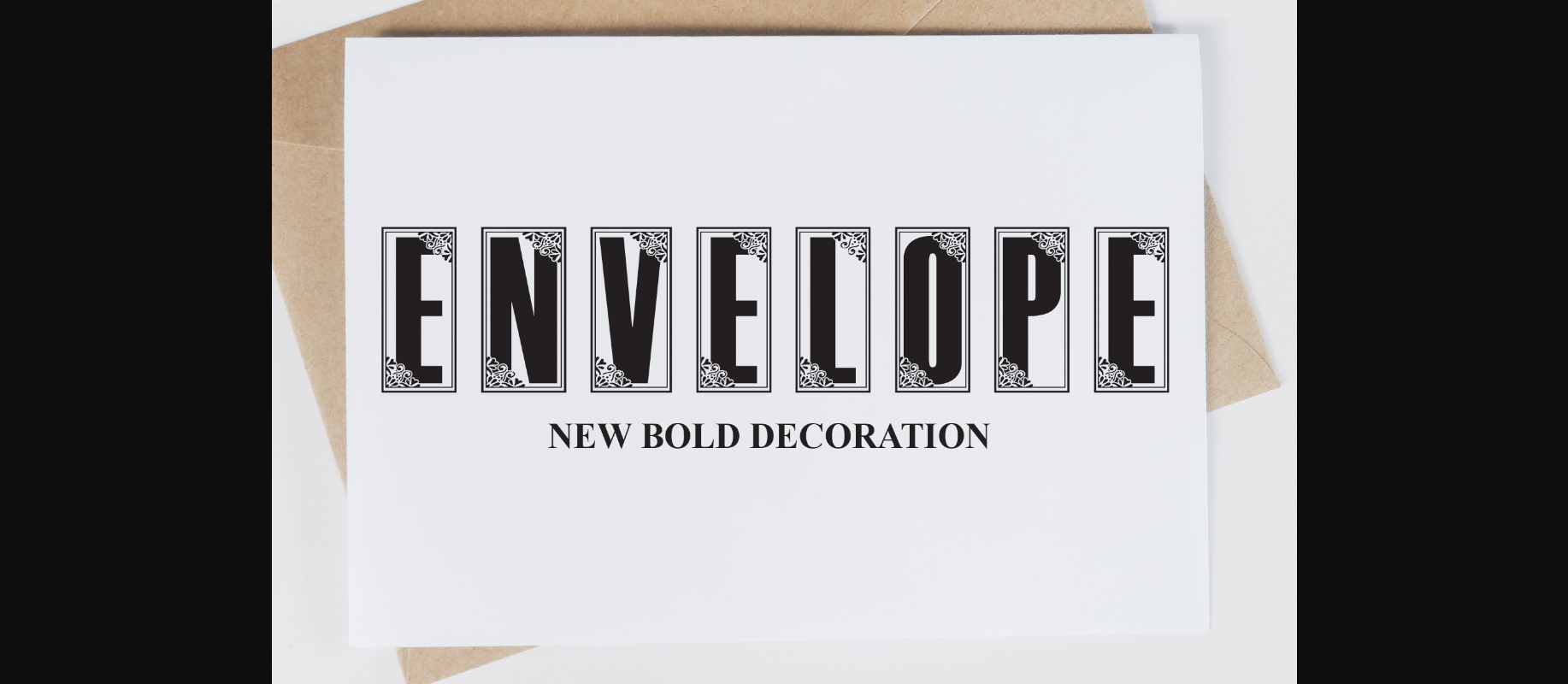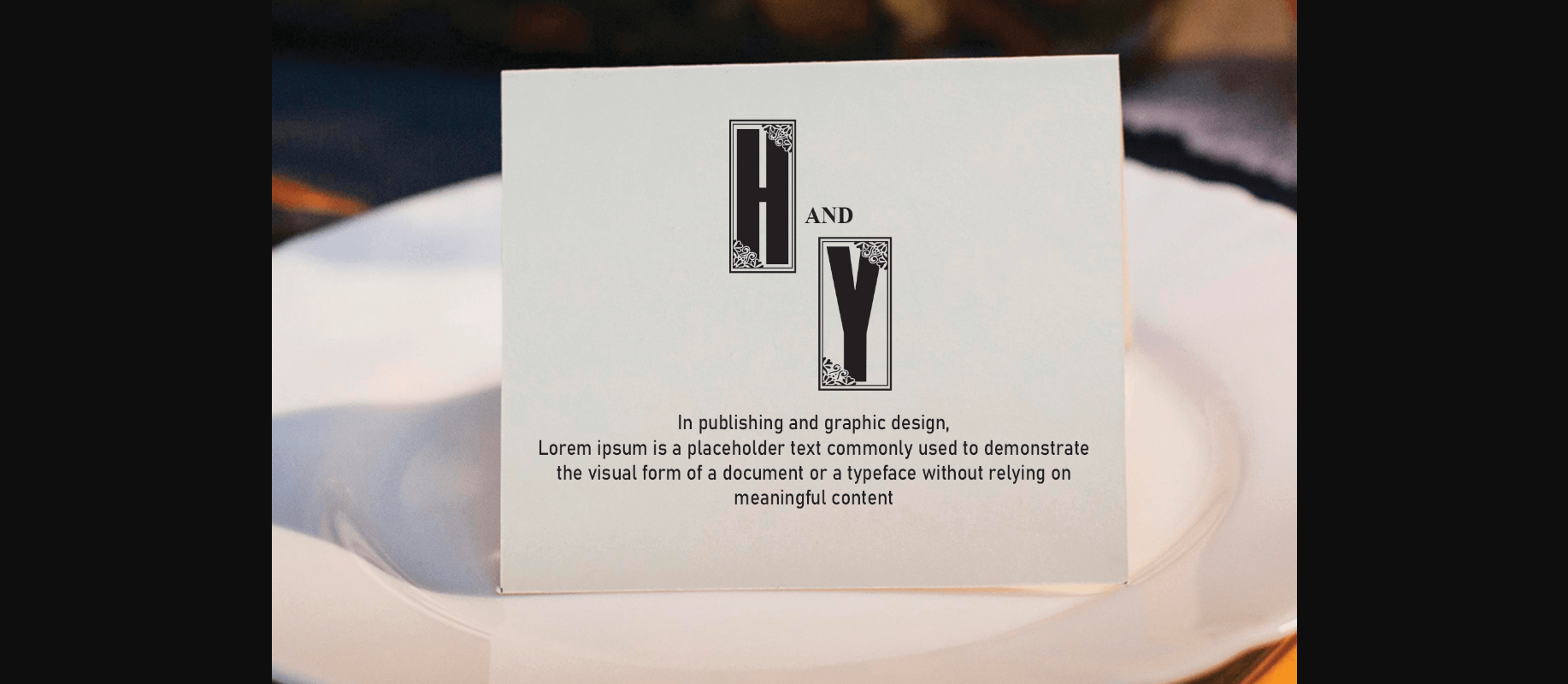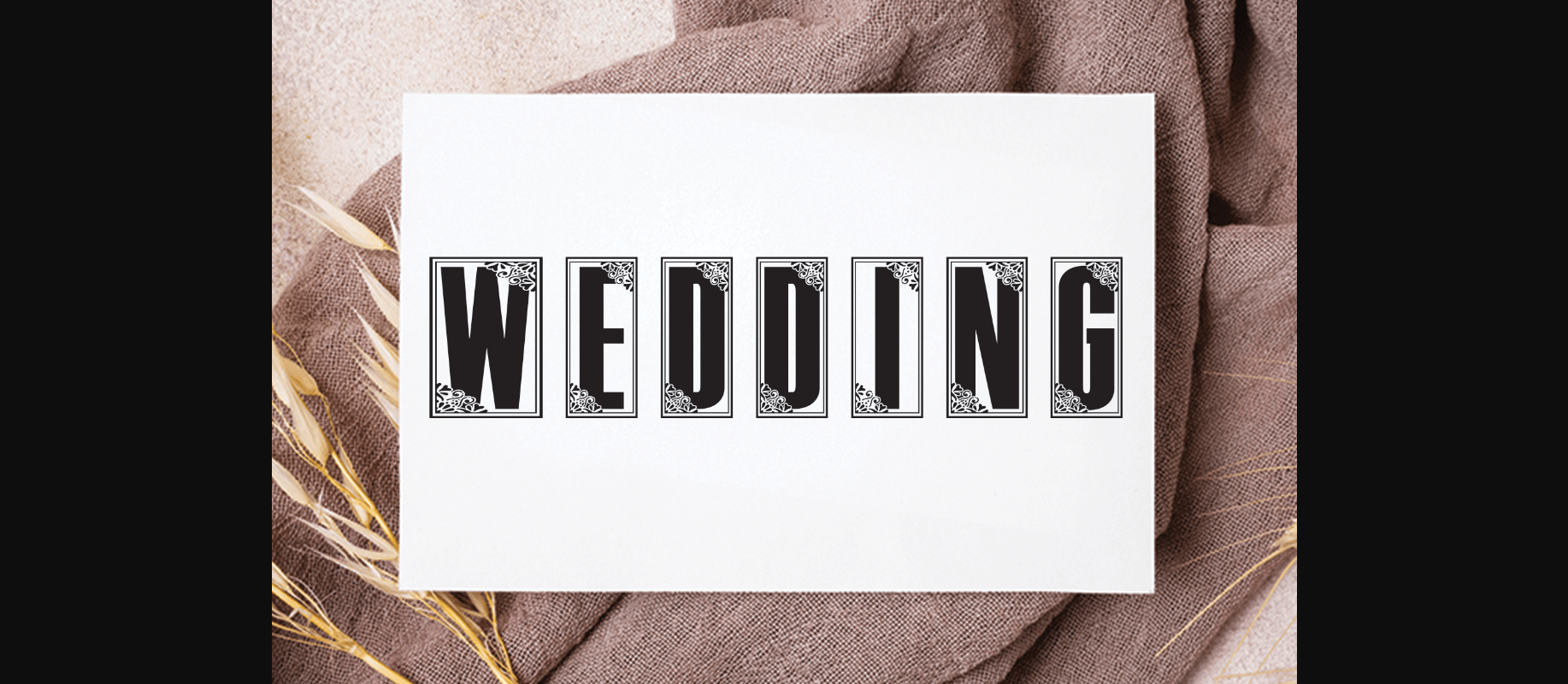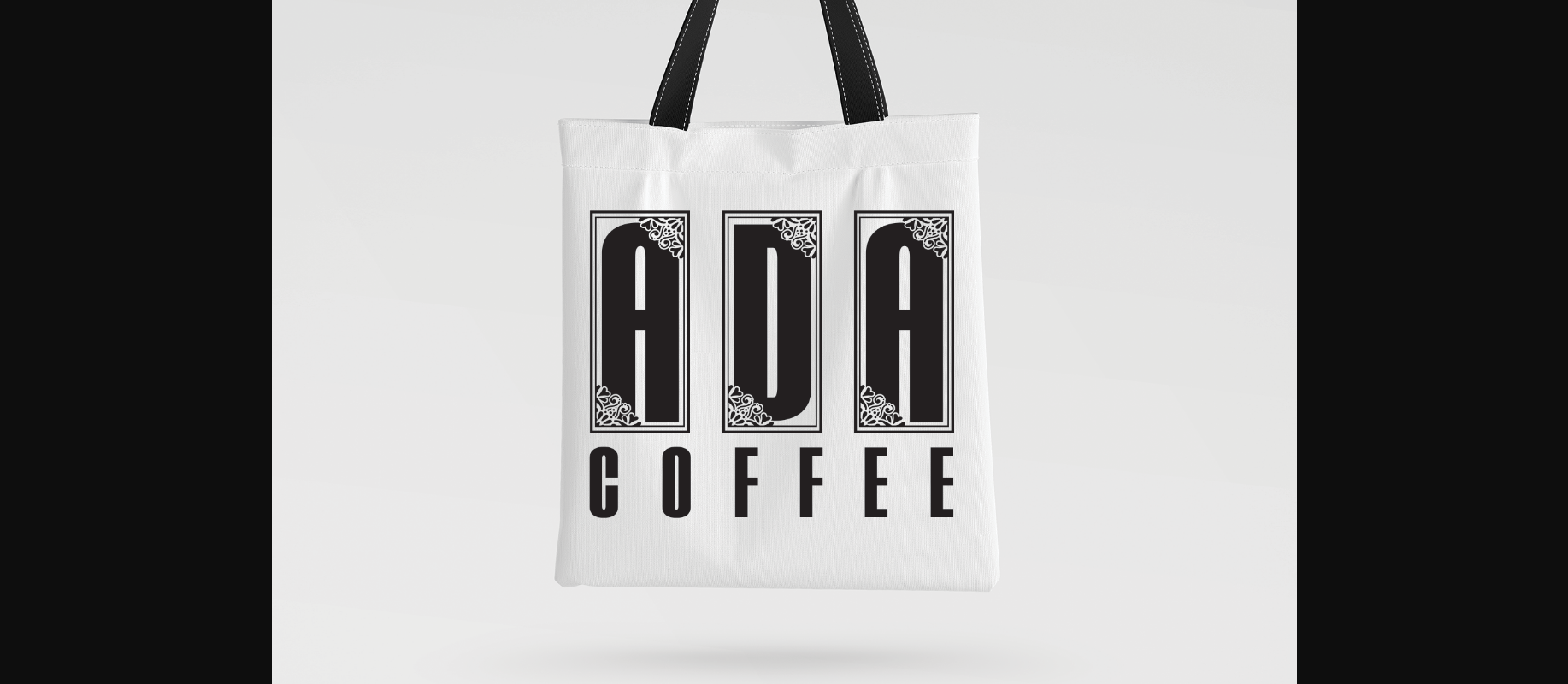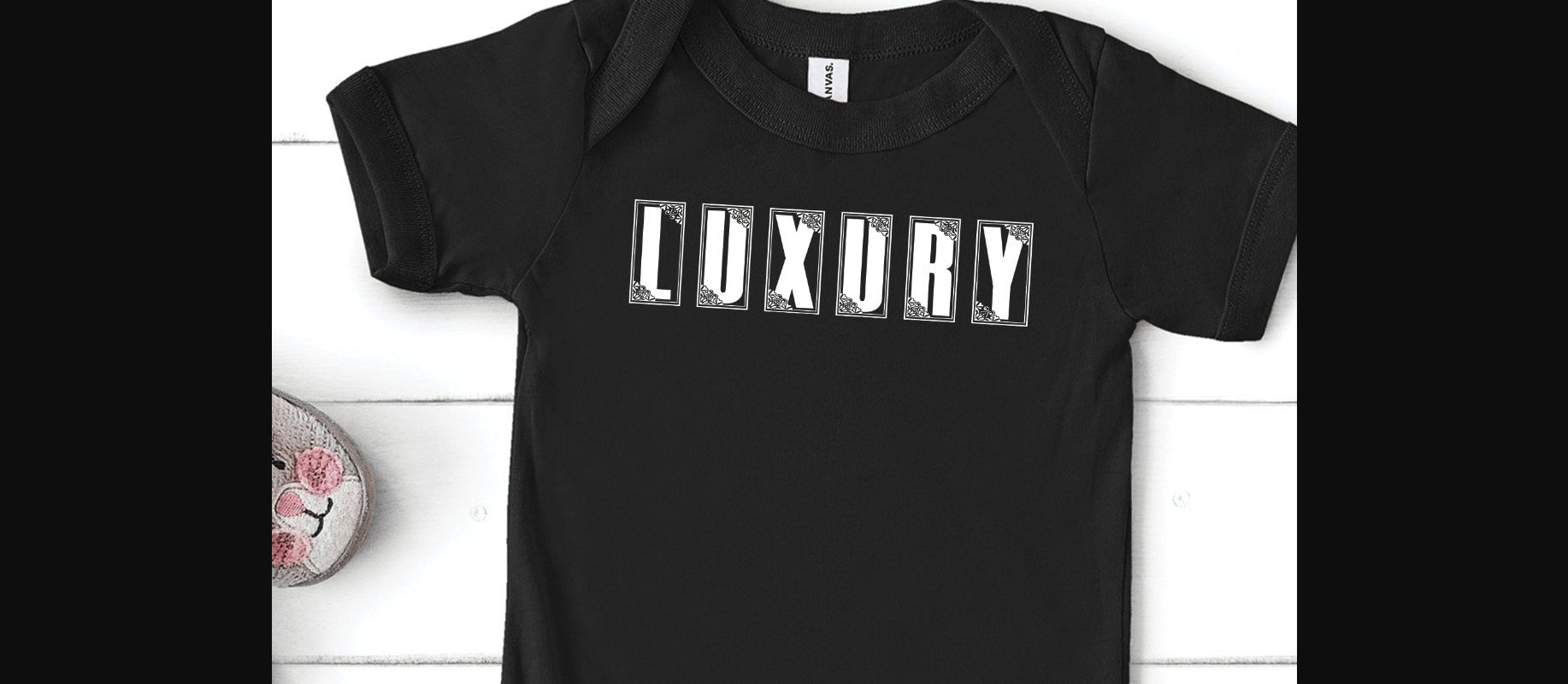
Envelope Font
About Envelope Font
Envelope is a beautiful decorative font that you can use for a variety of projects such as wall hangings, wedding invitations, social media post logos, advertisements, product packaging, product designs, labels, photography, watermarks, invitations, and stationery.